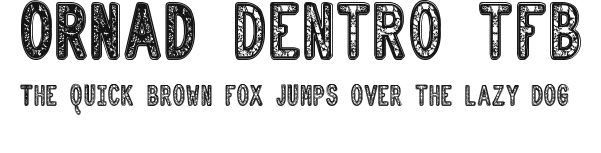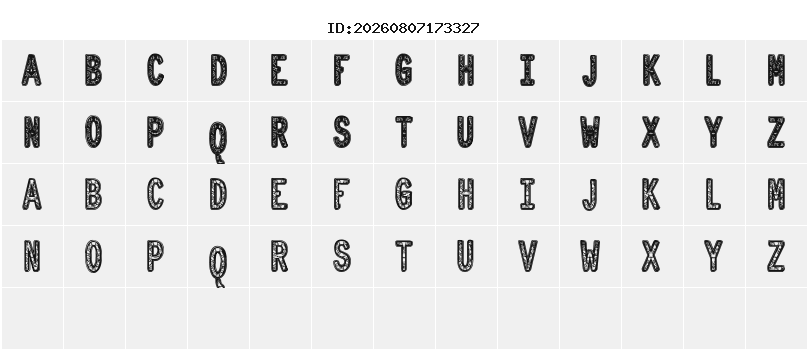
ORNAD dentro tfb Preview
• Font Name: ORNAD dentro tfb
• Full Font Name: ORNAD dentro tfb
• Version: Version 1.00 January 14, 2013, initial release
• Designer: kaiser zhar khan
About ORNAD dentro tfb.ttf
ORNAD dentro tfb.ttf is a modern, elegant sans-serif font designed for ultimate readability and visual harmony. Perfect for branding, headlines, web design, and print materials.